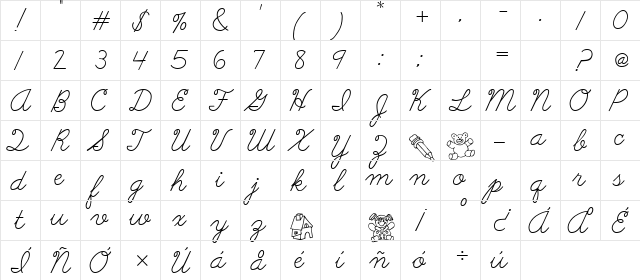
Abc Cursive Regular Font Preview
Abc Cursive Regular
Design Context for Abc Cursive Typeface
Abc Cursive brings a calligraphic fluidity to the page — its connecting strokes and expressive curves give it an unmistakably human quality.